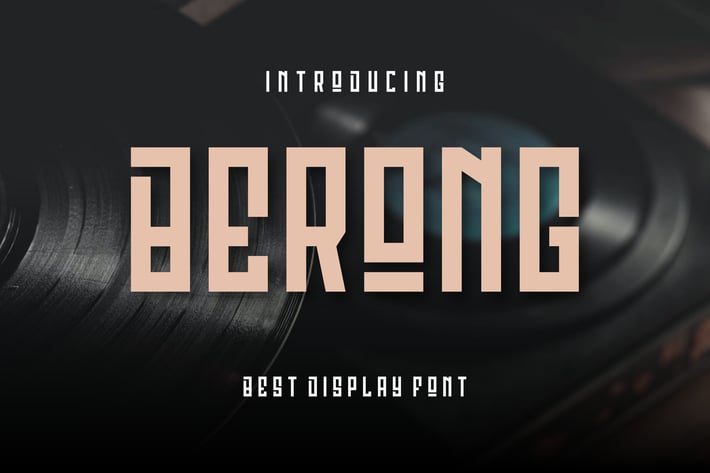
Berong Font
Introducing our new product Berong - Modern Font
Berong is a bold, modern display font with playful flair, ideal for attention-grabbing headlines, logos, and diverse design projects. Versatile and readable in both digital and print, Berong adds a dynamic touch to your message.